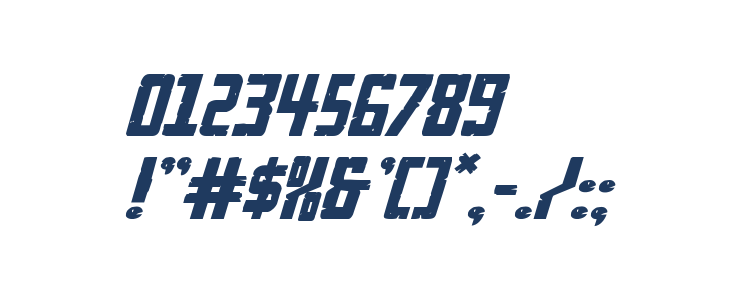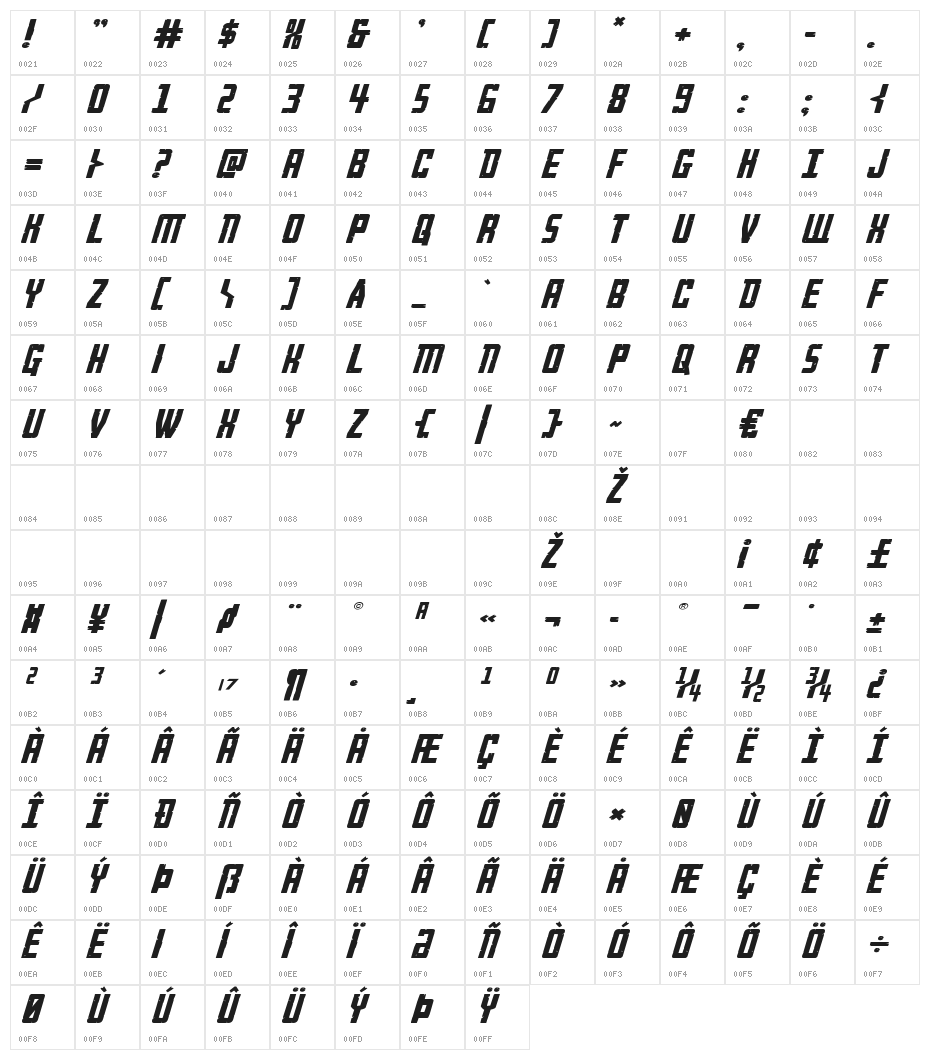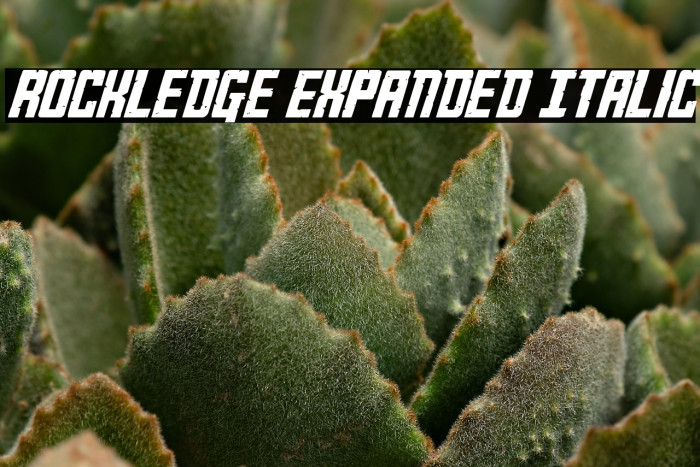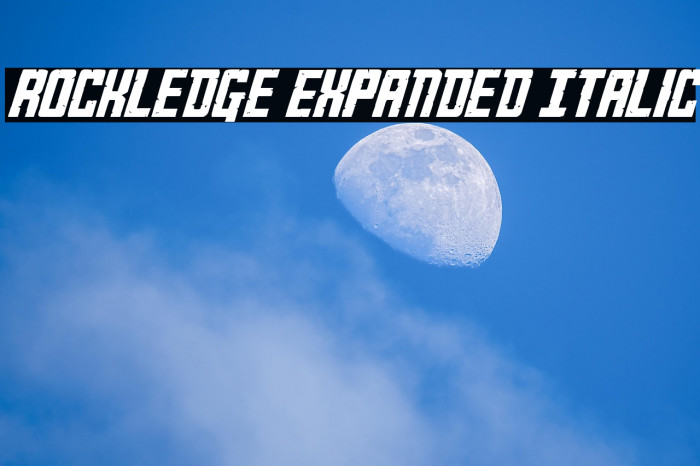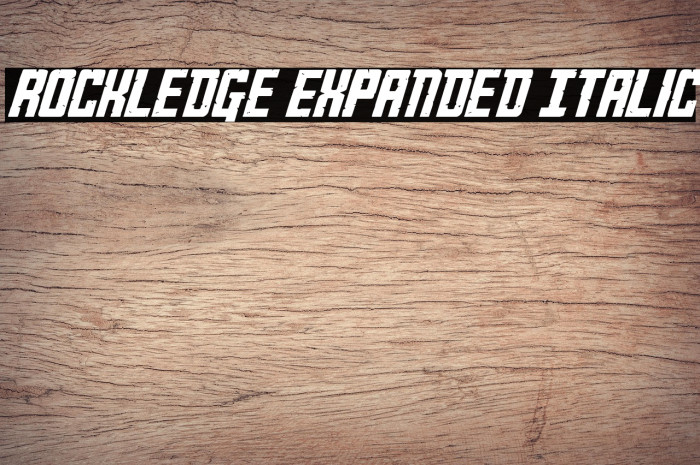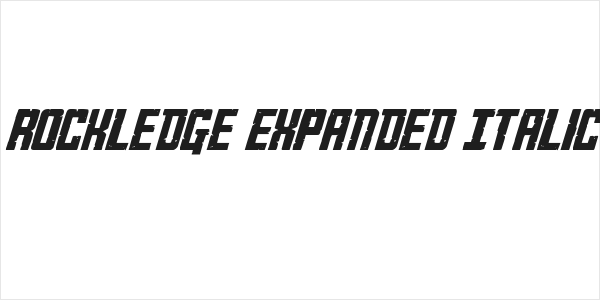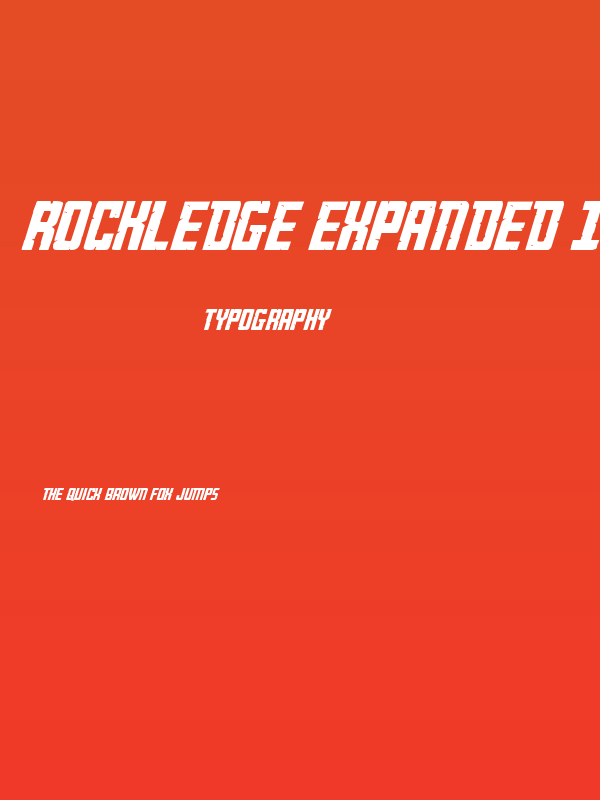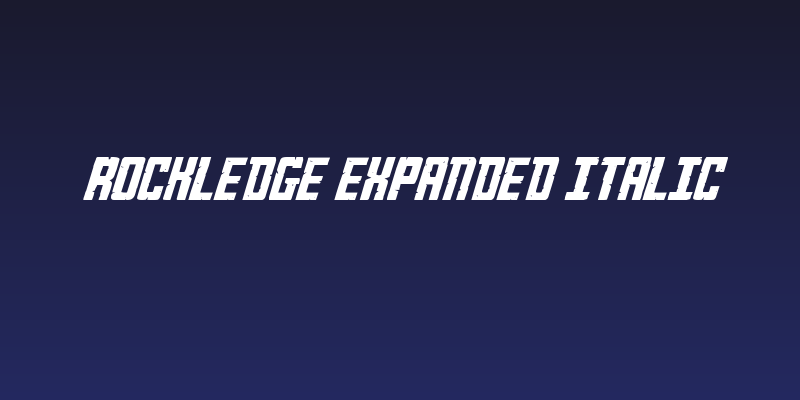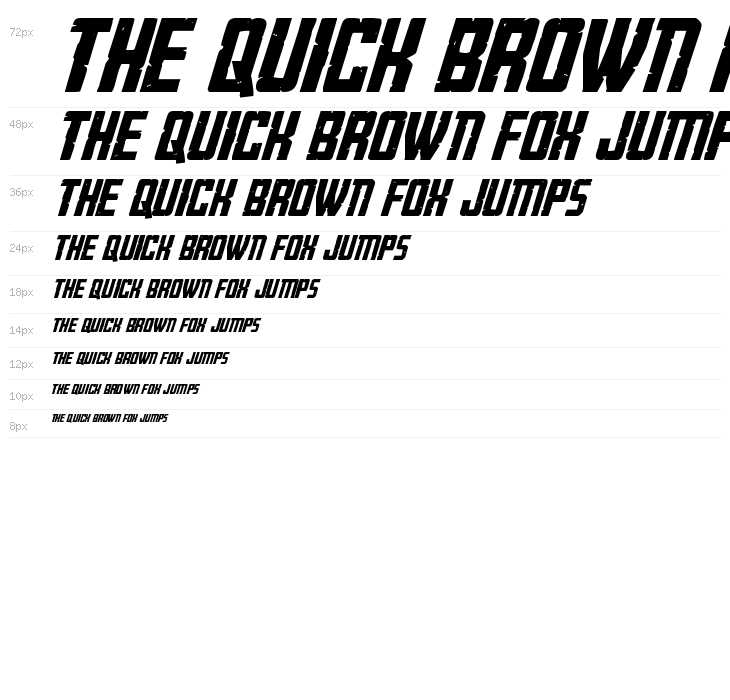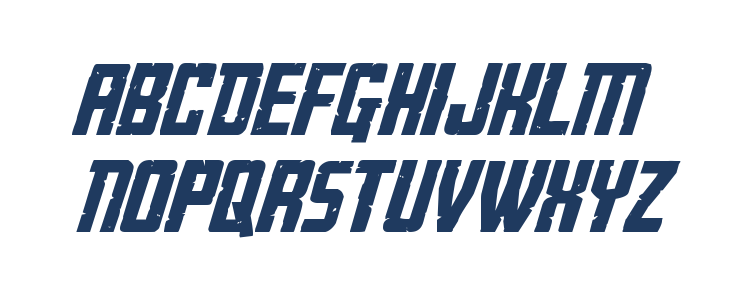
Rockledge Expanded Italic Font
Rockledge Expanded Italic Description
This font features a bold and dynamic design with an expanded width and italicized style. The characters are angular and geometric, giving a modern and futuristic appearance. The uppercase and lowercase letters maintain a consistent style, with sharp edges and a strong presence. Numbers and special characters are equally bold, ensuring readability and impact. The font's expanded width allows for a spacious feel, while the italic slant adds a sense of motion and energy.